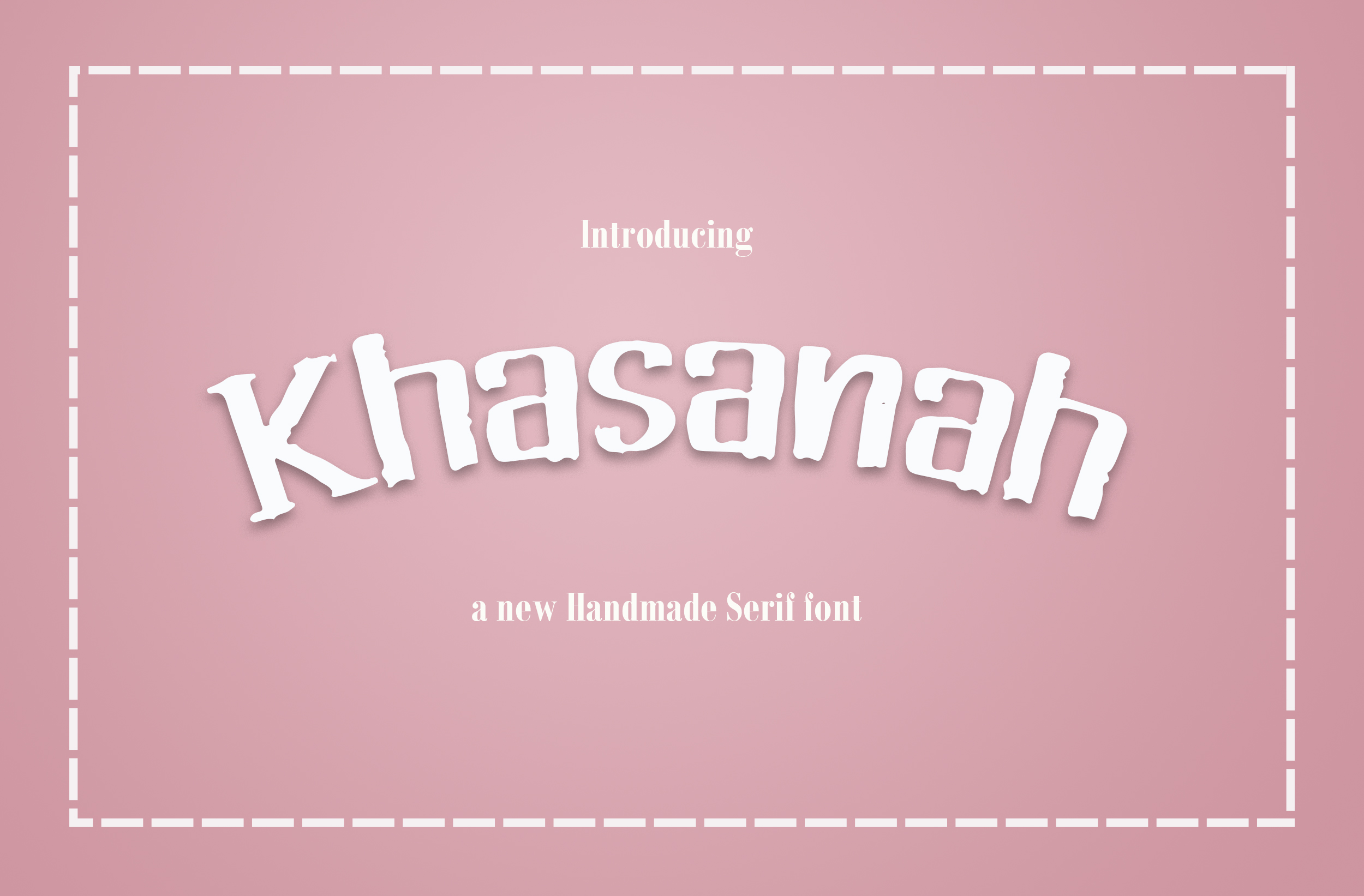
Khasanah
About Khasanah
Khasanah is a gorgeous handmade brush font, crafted in a serif style for a dose of class and elegance. This font comes in three different weights, making it suitable for editorials and headlines.